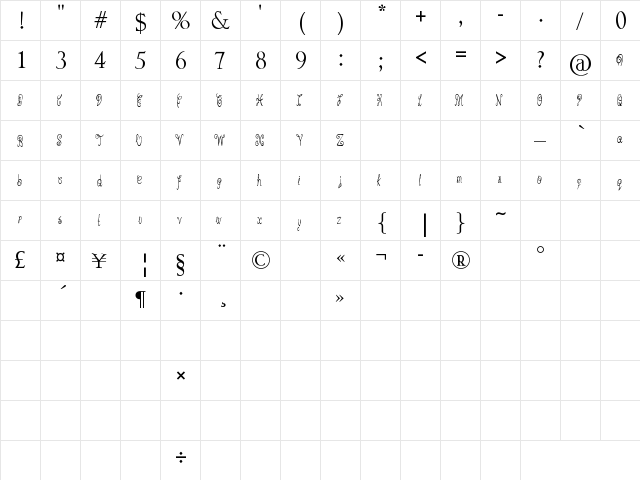
Easy script Regular
Design Context for Easy script Typeface
Easy script brings a calligraphic fluidity to the page — its connecting strokes and expressive curves give it an unmistakably human quality.
Font Pairing: Combine Easy script with a simple geometric sans for maximum contrast — the tension between flowing curves and clean structure is a classic typographic pairing.
Pro Tip: Pair Easy script with a clean sans-serif for supporting text. The contrast between fluid script and geometric structure creates an elegant typographic hierarchy.